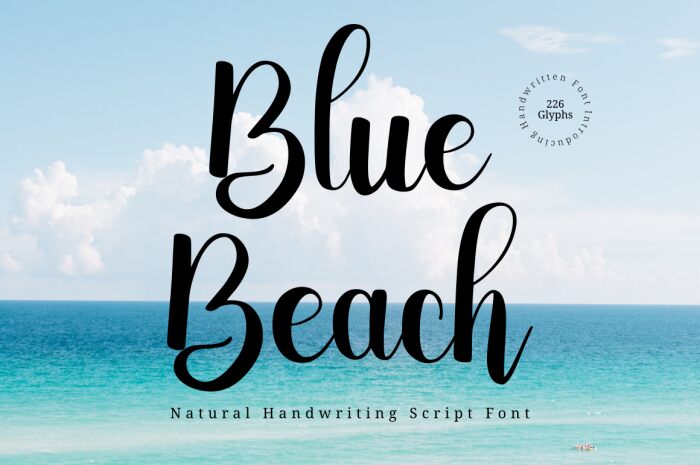
Blue Beach
Blue Beach font by Rissyletter Studio is a free calligraphy font with an expressive, flowing style. Its elegant and decorative design makes it charming and distinctively beautiful, perfect for creating captivating visuals that require a personalized touch.
Use Blue Beach font in logos, packaging designs, product labels, branding projects, printed banners/posters/flyers, signs with large text sizes and short texts, album covers, book titles/covers. Use this calligraphic beauty also in magazines or newspaper ads.